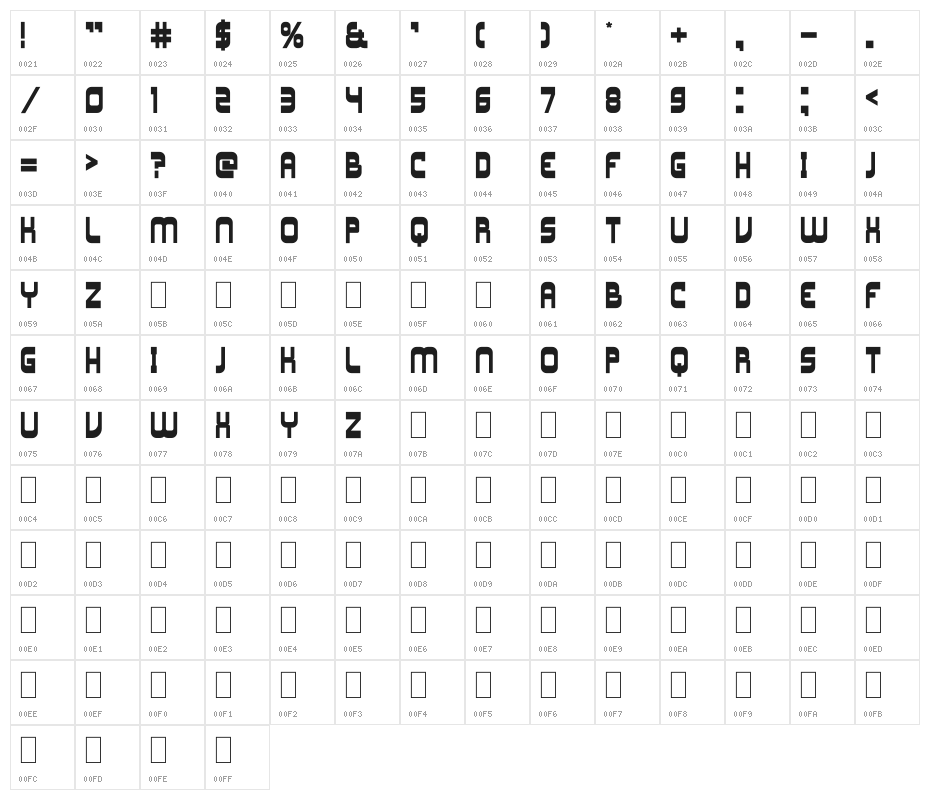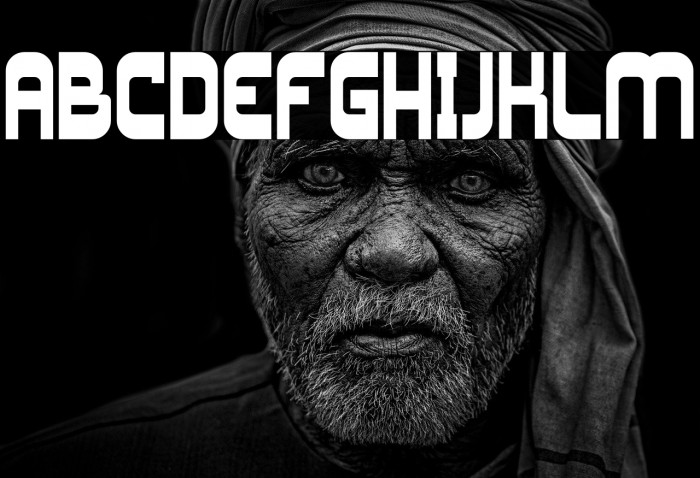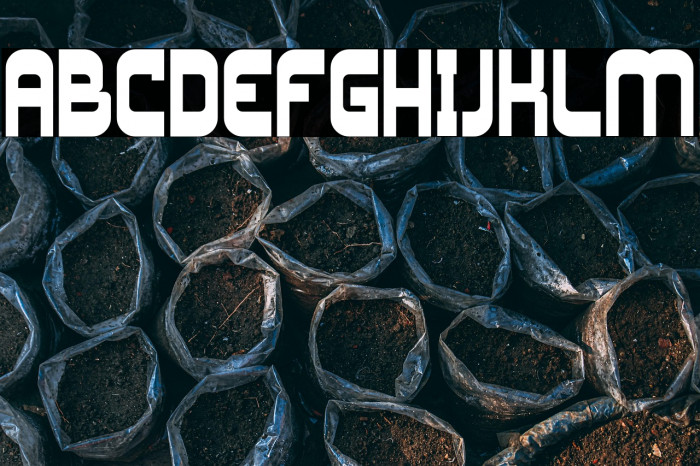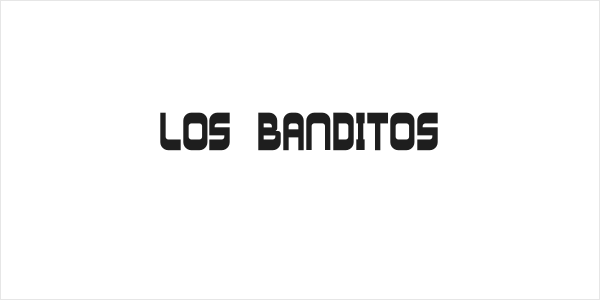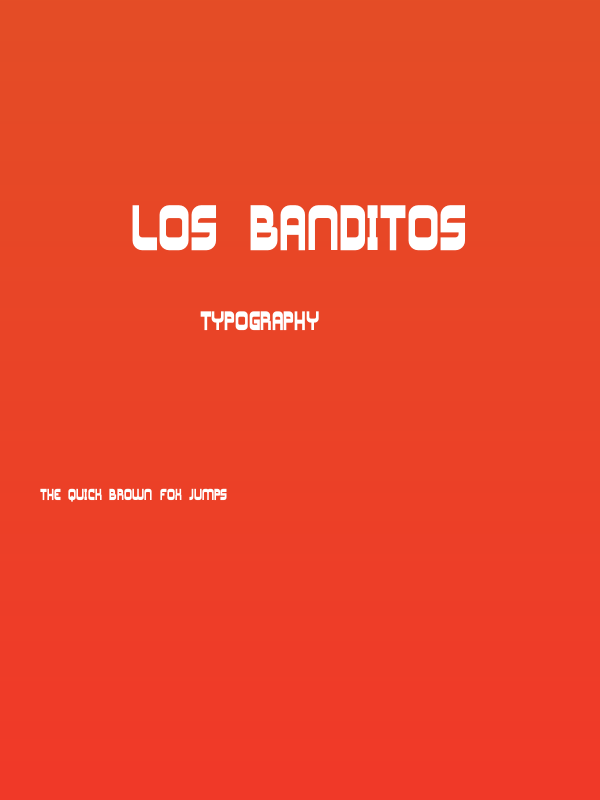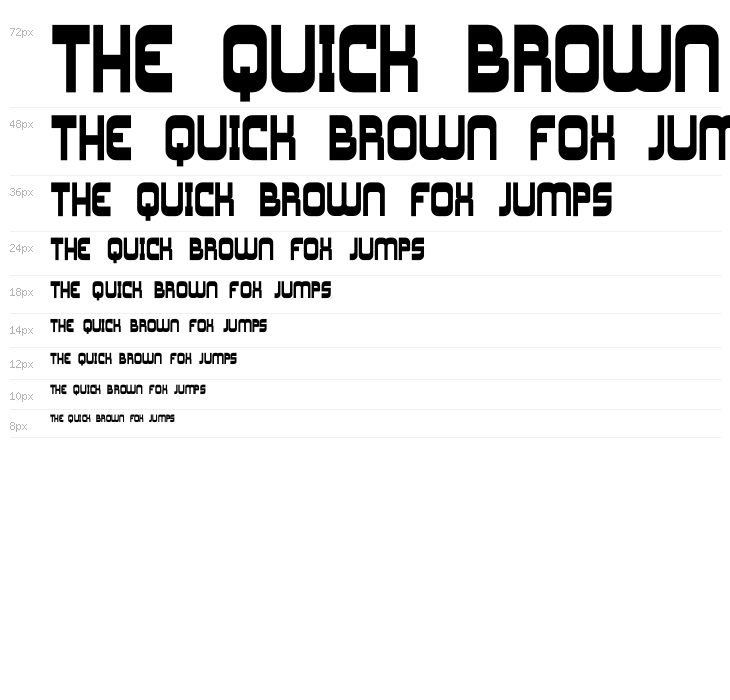
Los Banditos Font
Los Banditos Description
This font features a bold, geometric design with a strong presence. The characters are constructed with thick, uniform strokes, giving them a robust and modern appearance. The uppercase letters are particularly striking, with a blocky, angular style that conveys strength and stability. The lowercase letters maintain this boldness while offering slightly softer curves, providing a nice contrast. Numbers and special characters are equally bold, ensuring consistency across all glyphs. The font's design is clean and uncluttered, making it highly legible even at smaller sizes. Its unique style makes it suitable for a variety of creative applications.
| Proposed Projects | Ideal for branding, posters, headlines, and any project requiring a strong visual impact. |